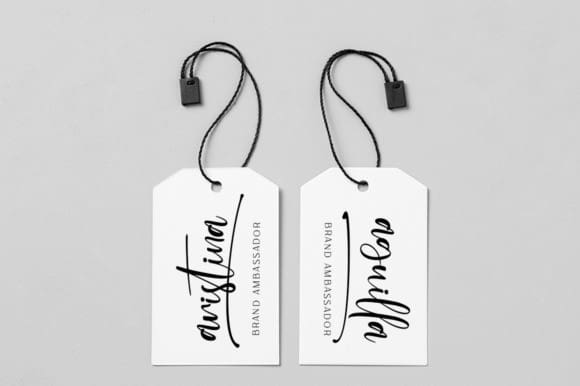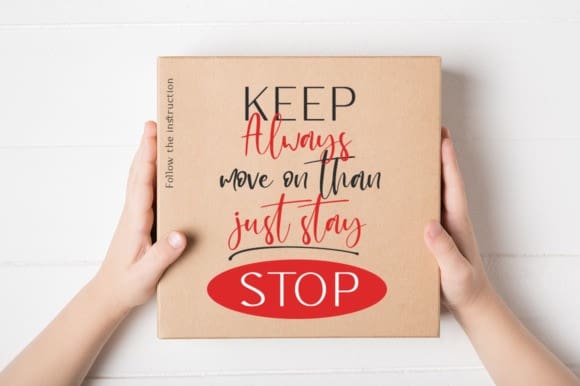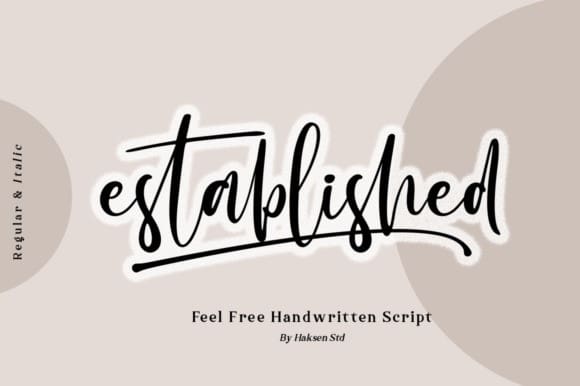
Established Script Font
Established Script Font is a stylish and beautiful handwritten font. Dainty and joyful, this font will be ideal for writing wedding invitations, cards or any other design that may need a romantic, personalized touch!